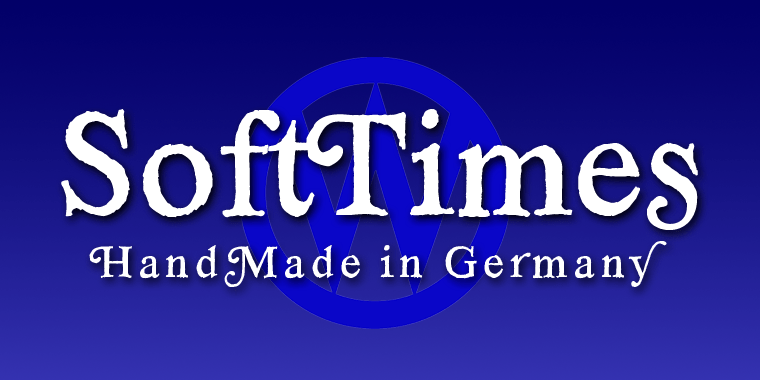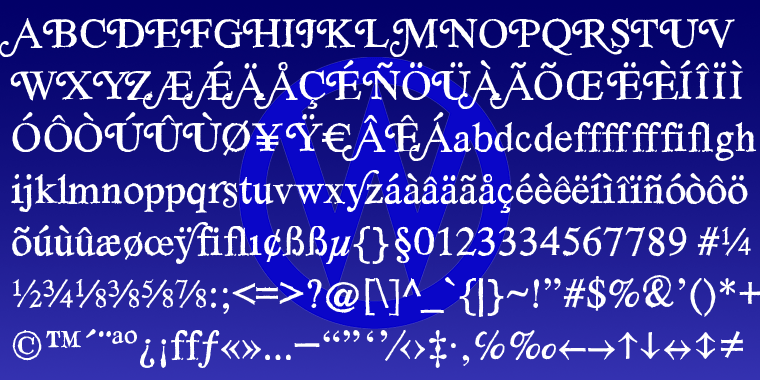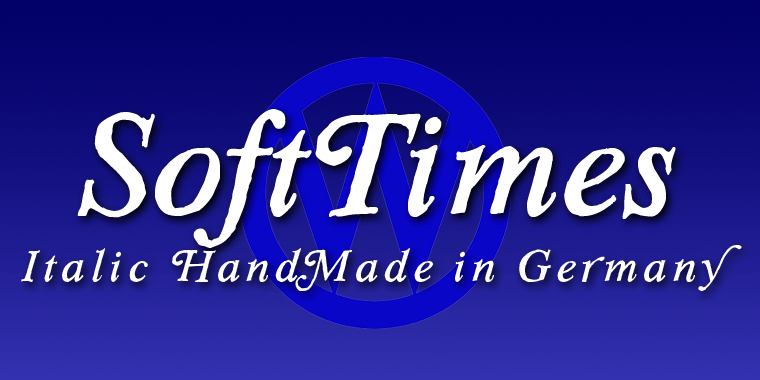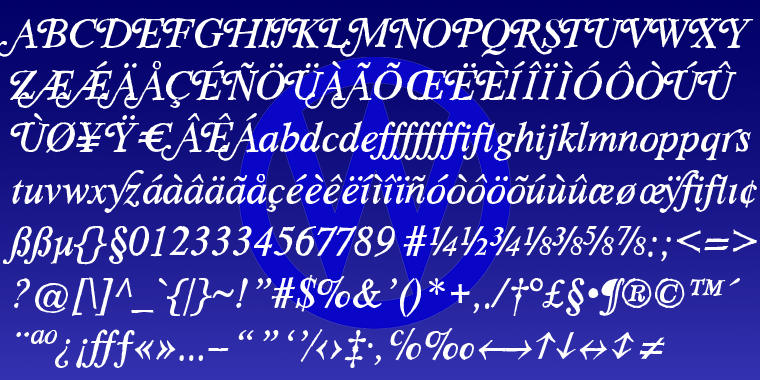
SoftTimes Roman
Font Family by Wiescher Design
Designing SoftTimes has been easy on my nerves after the strain of HardTimes. The harder the Times are the more do we need some soft typefaces, this one is the soft counterpart for HardTimes.